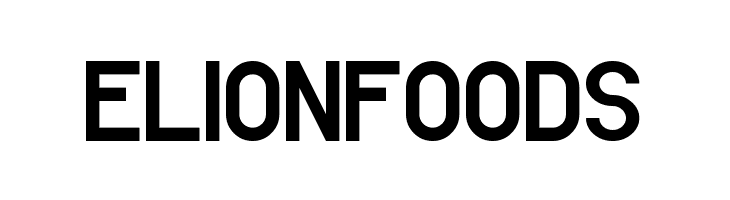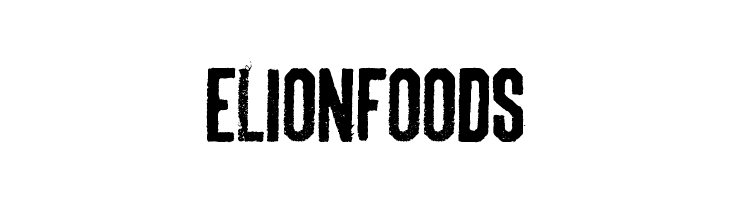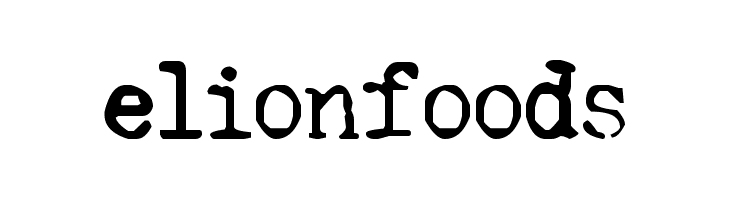
A modern, ultra-thin, and elongated font with a minimalist design.
A bold, playful font with rounded edges and a friendly appearance.
A bold, dripping font with a horror-inspired aesthetic.
A playful, handwritten font with bold, rounded strokes and a whimsical style.
A bold and italic playful font with rounded, dynamic characters.
A playful, handwritten font with a bold, slanted style.
A bold, angular font with a futuristic and geometric design.
A bold, geometric font with dynamic striped patterns for a modern look.
A fluid, elegant handwritten font with smooth, connected letterforms.
An elegant, swash-filled font with intricate, flowing designs.
A fluid and elegant handwritten script font with a dynamic flow.
An elegant, high-contrast script font with flowing, cursive letters and artistic flourishes.
A fluid, cursive script font with a natural handwritten style.
A distressed, vintage-style font with irregular edges and a rustic feel.
A lively, handwritten brush script font with dynamic, fluid strokes.
A bold, geometric font with a modern and industrial aesthetic.
A bold, modern sans-serif font with clean, geometric lines.
A bold, jagged, and distressed decorative font with a chaotic and intense style.
A bold, hand-drawn font with a playful and energetic style.
A playful, hand-drawn font with a bold, cartoonish style.
A whimsical and elegant script font with decorative loops and swirls.
A bold, distressed font with a vintage, industrial feel.
A bold, distressed font with a stamped, grunge aesthetic.
A bold, distressed font with star cutouts, ideal for edgy designs.
Hand-drawn, skate-themed decorative font with playful illustrations.